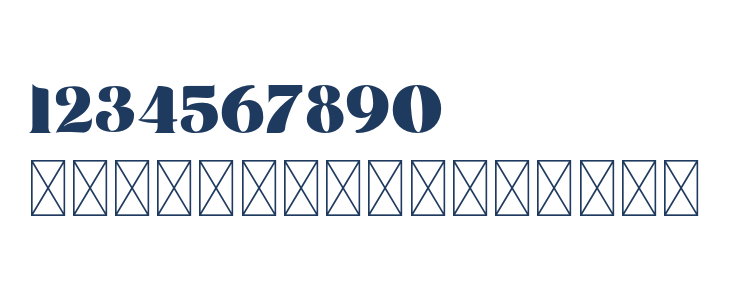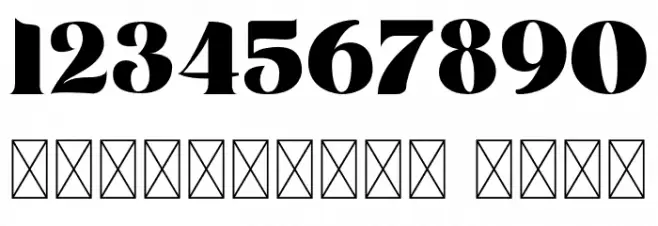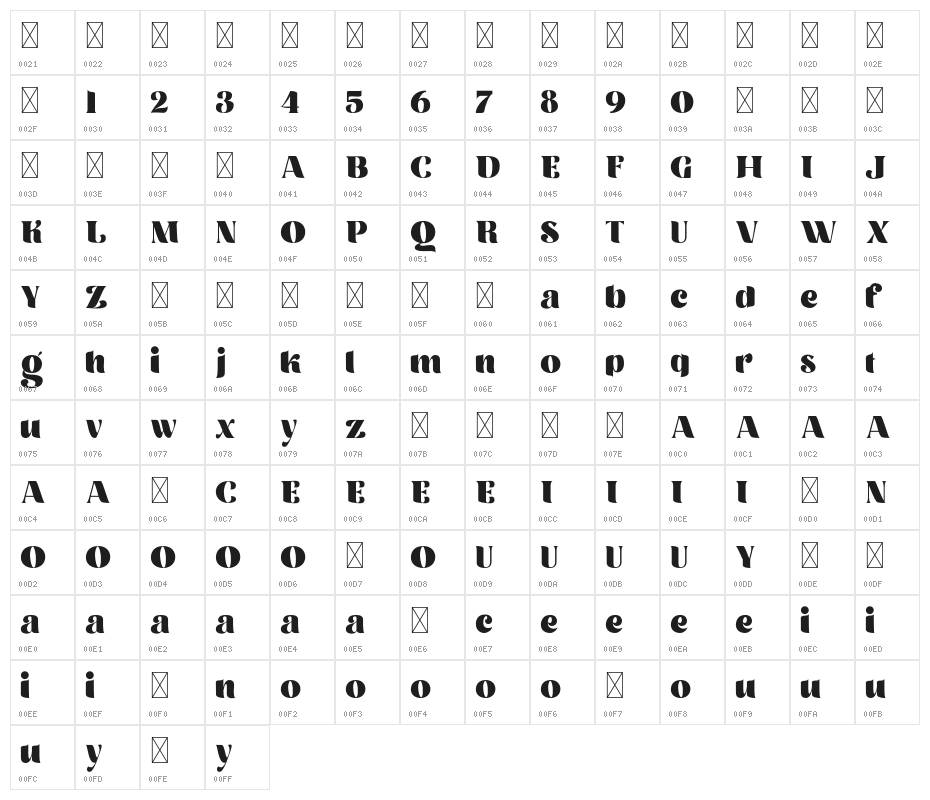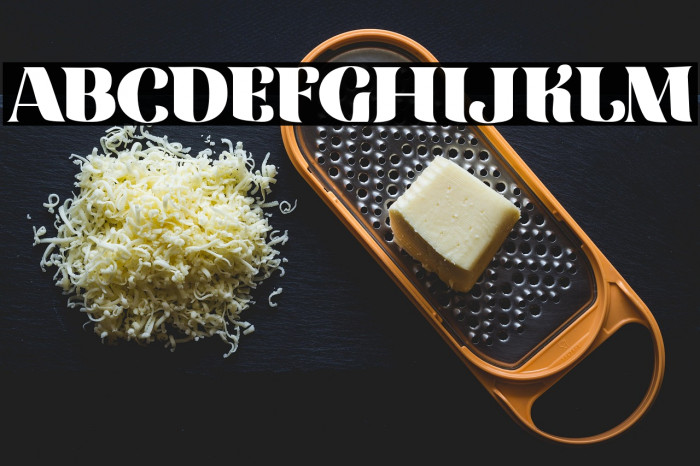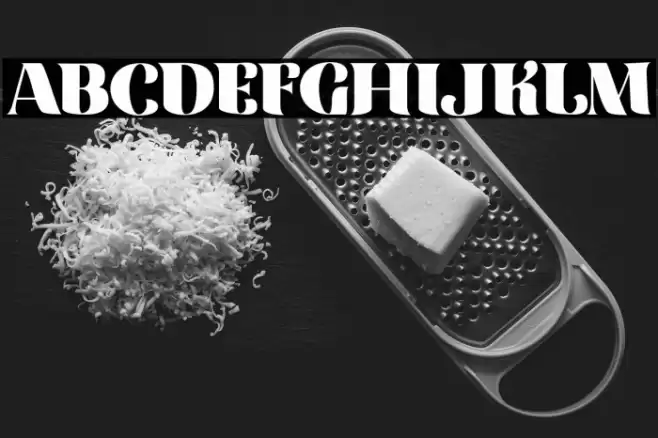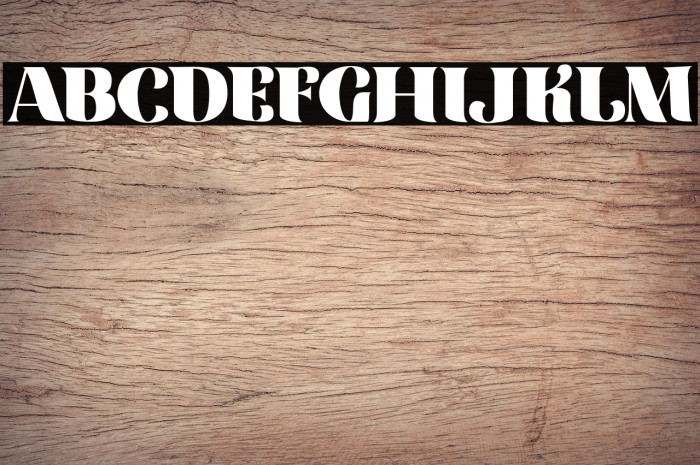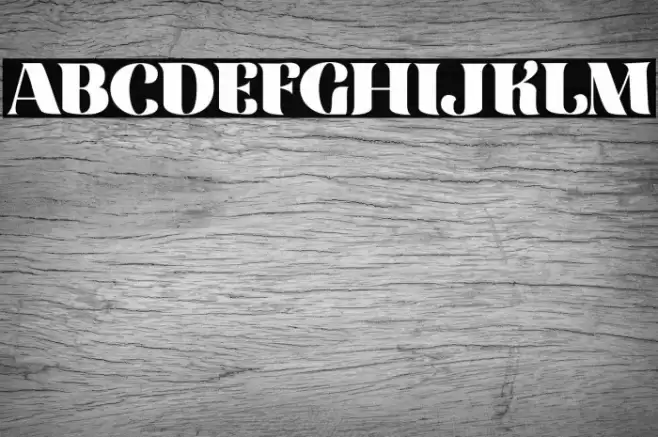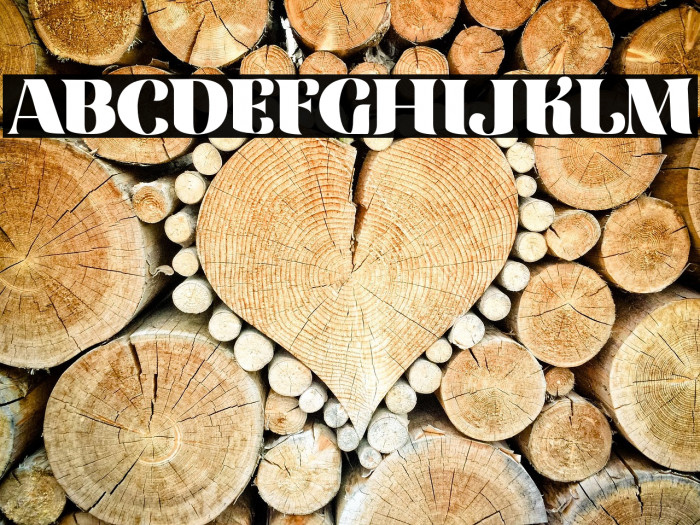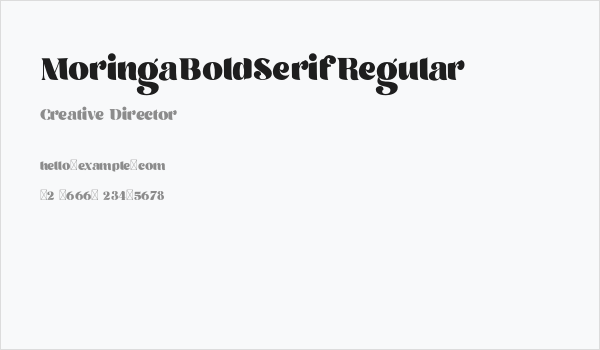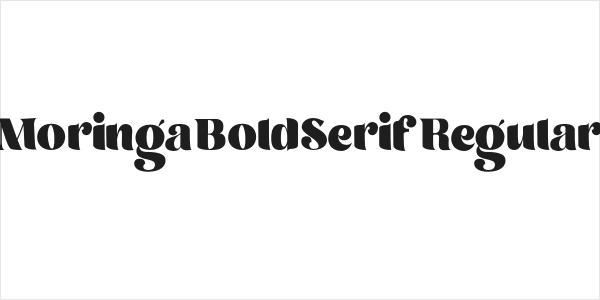
MoringaBoldSerifRegular Font
MoringaBoldSerifRegular Description
This font features a bold and striking serif style with a modern twist. The uppercase letters are characterized by thick, prominent strokes and unique, angular serifs that add a touch of elegance and sophistication. The lowercase letters maintain a consistent boldness, with rounded edges that provide a softer contrast to the sharp serifs. The numerals are equally bold, ensuring they stand out clearly. The overall design is both eye-catching and versatile, making it suitable for a variety of applications. The font's bold weight and high contrast make it ideal for headlines and titles, where impact is essential.